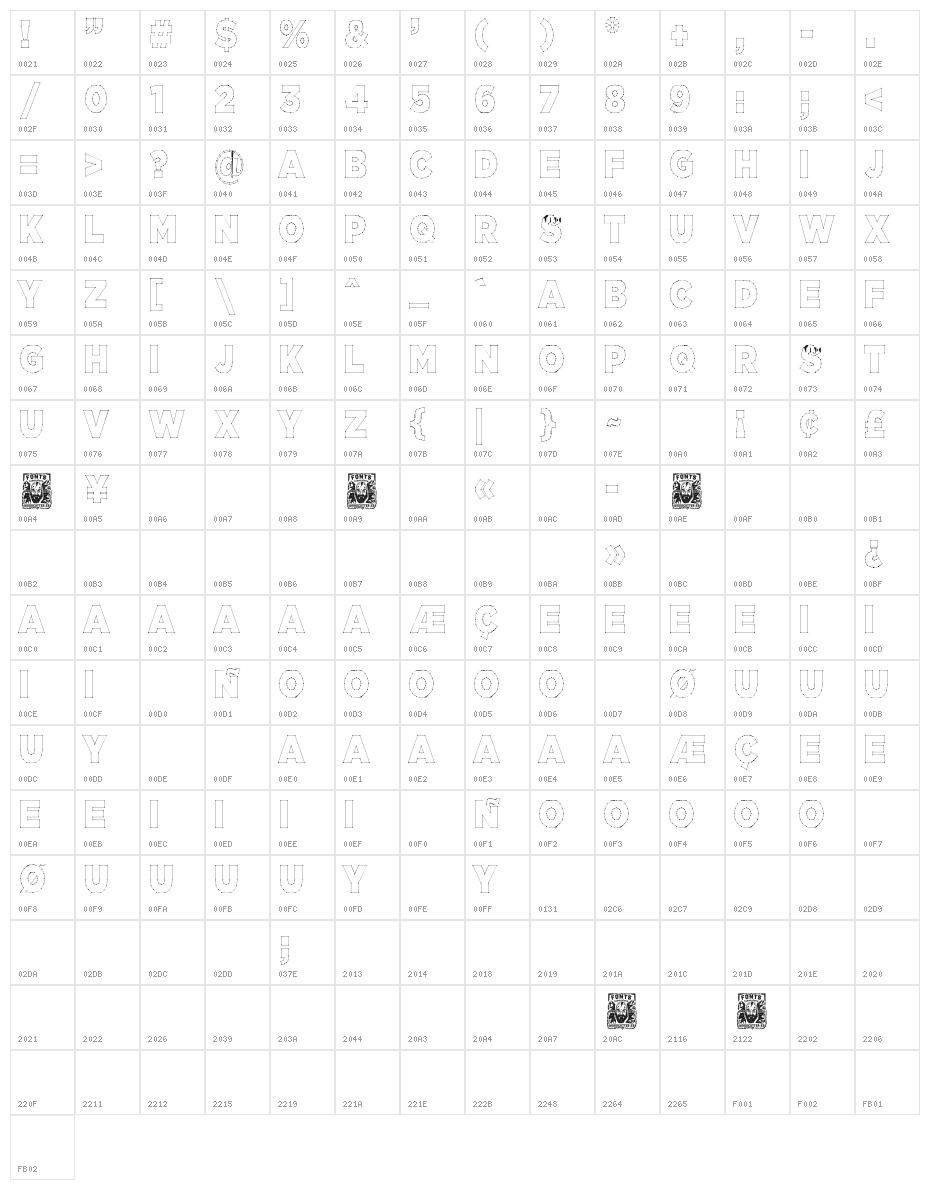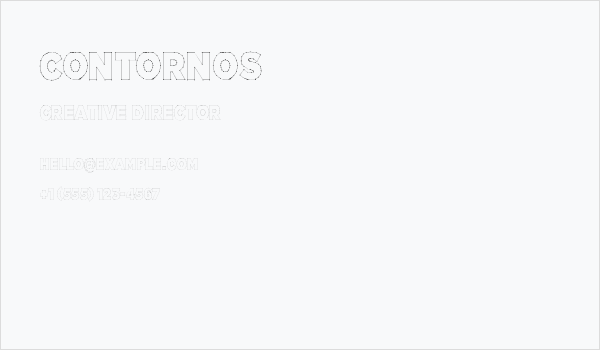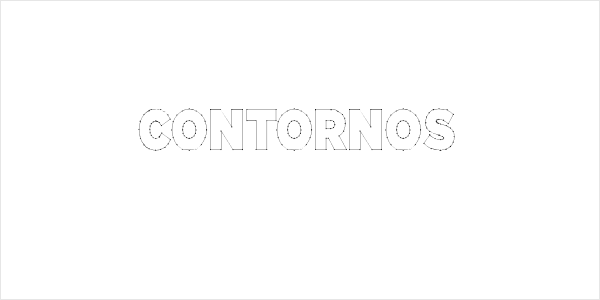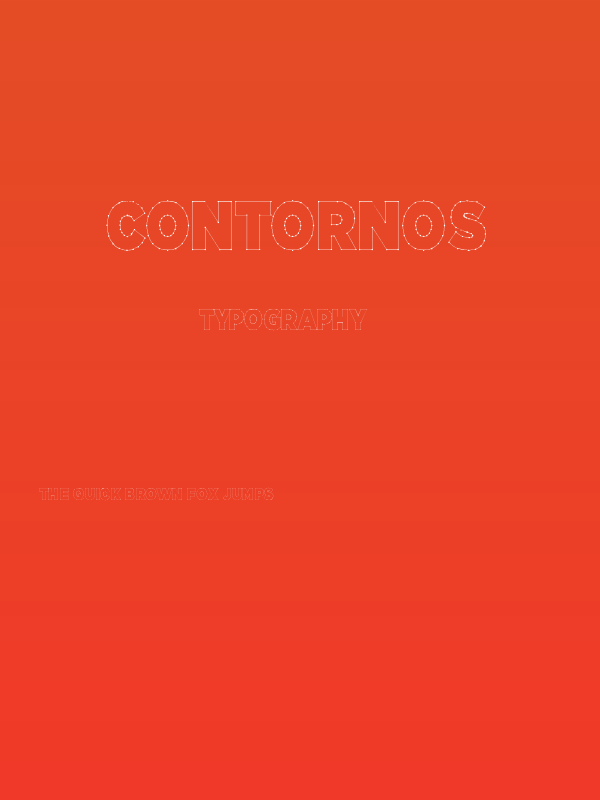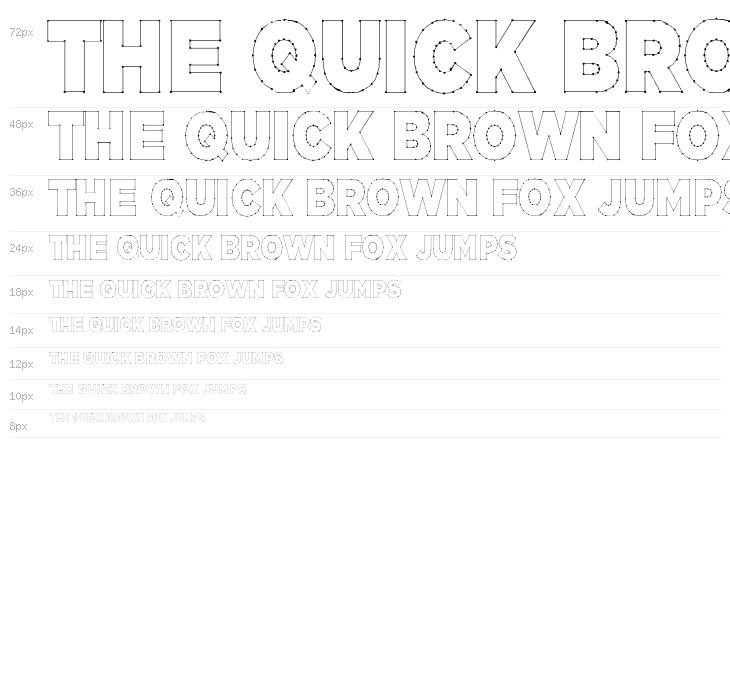
Contornos Font
Contornos Description
This font features bold, geometric letterforms with a strong presence. Each character is outlined, creating a hollow effect that adds a unique dimension to the text. The uppercase and lowercase letters maintain a consistent width, contributing to a uniform appearance. Numbers and special characters are designed with the same bold outline, ensuring cohesion across all elements. The font's clean lines and modern aesthetic make it versatile for various design applications. Its structured form and clear legibility are ideal for impactful visual communication.
| Proposed Projects | Ideal for posters, headlines, branding, and signage where a strong visual impact is desired. |